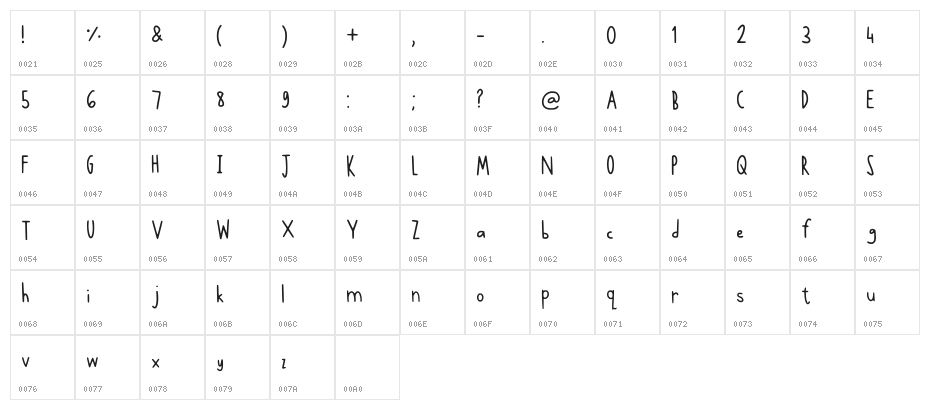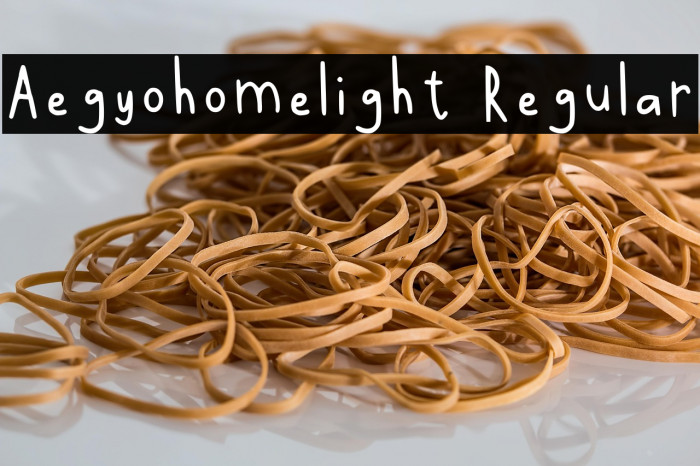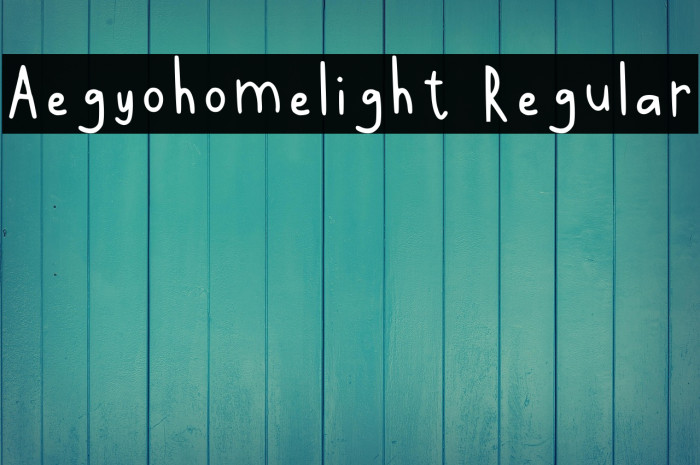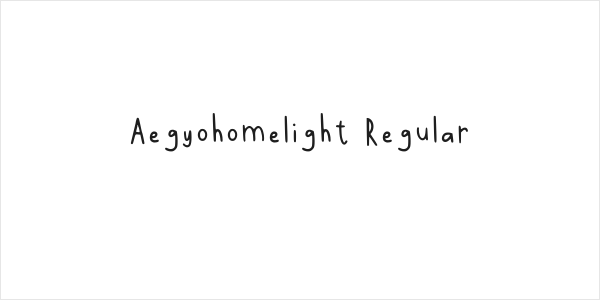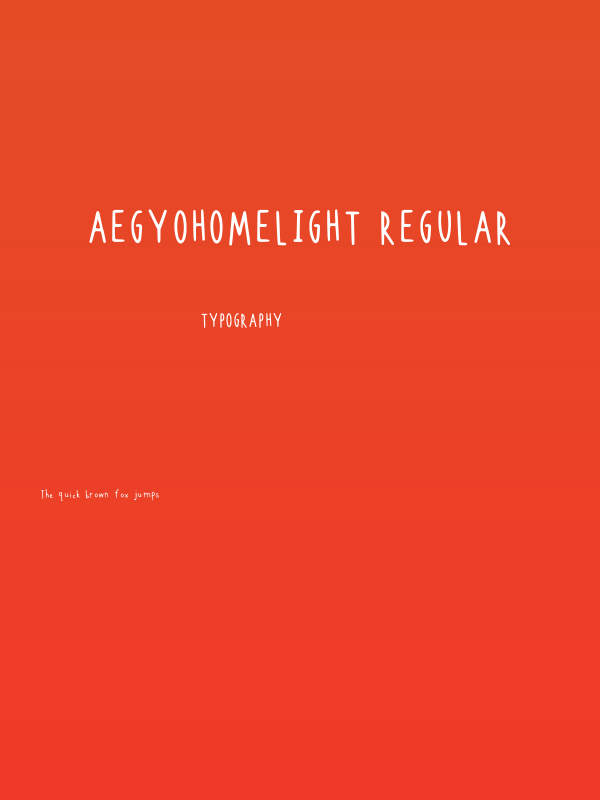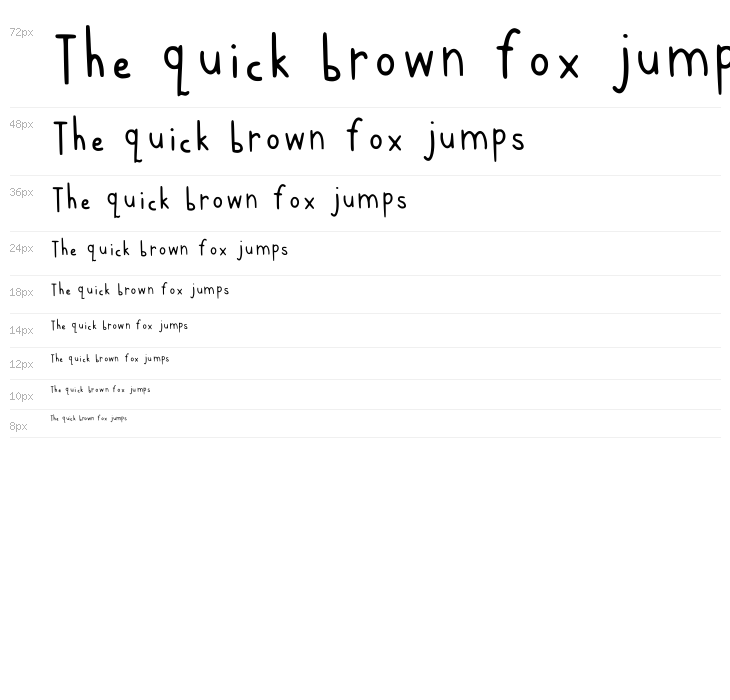
Aegyohomelight Regular Font
Aegyohomelight Regular Description
This font features a playful and casual handwritten style, characterized by its slightly irregular and organic letterforms. The strokes are smooth and rounded, giving it a friendly and approachable appearance. The uppercase and lowercase letters maintain a consistent style, with a slight variation in size and shape that adds to its charm. The numerals and special characters are well-integrated, maintaining the overall whimsical aesthetic. This font is versatile, suitable for projects that require a personal touch or a relaxed vibe.
| Proposed Projects | Ideal for greeting cards, children's books, casual branding, and social media graphics. |